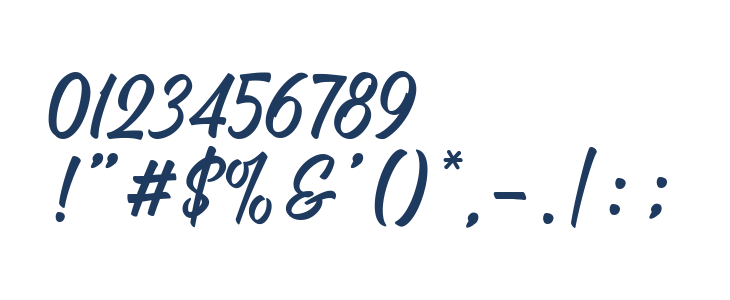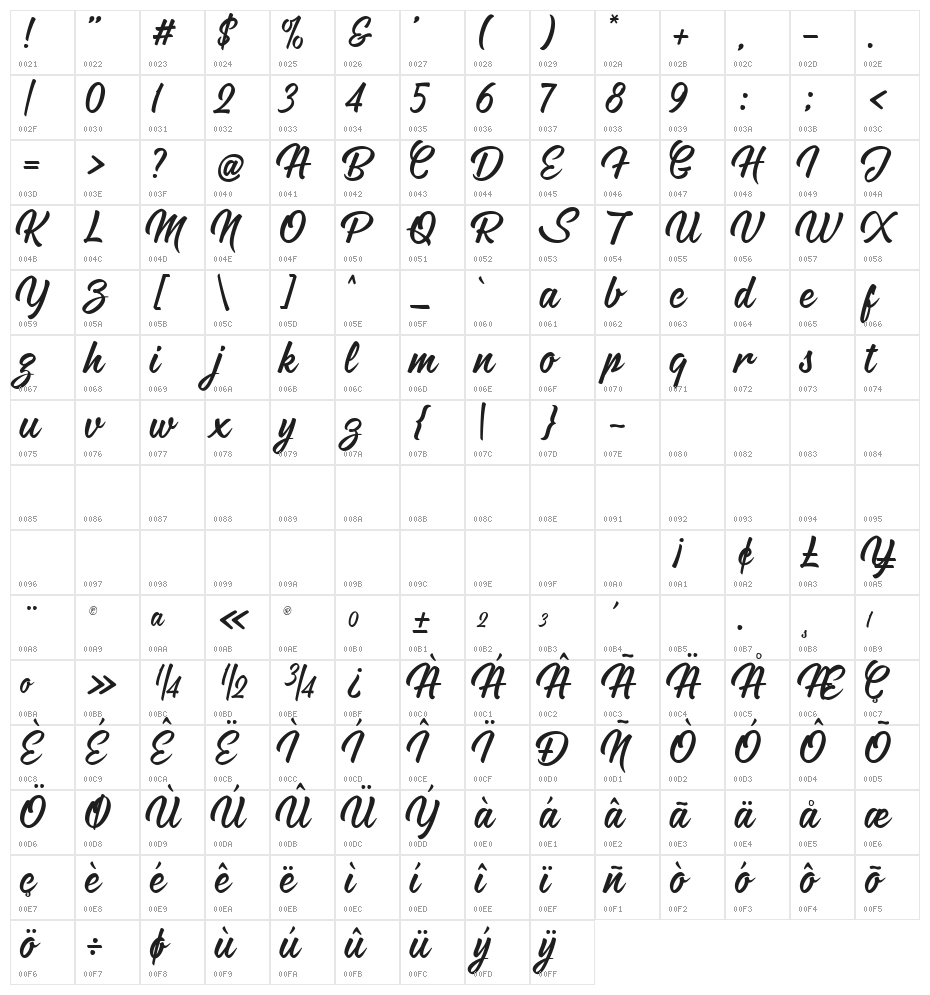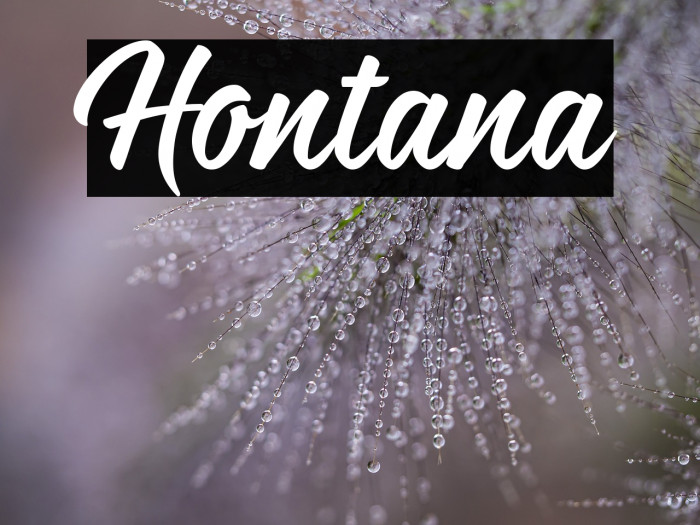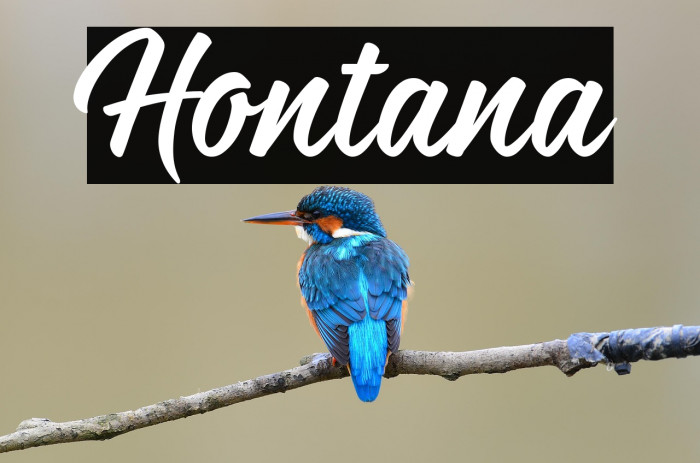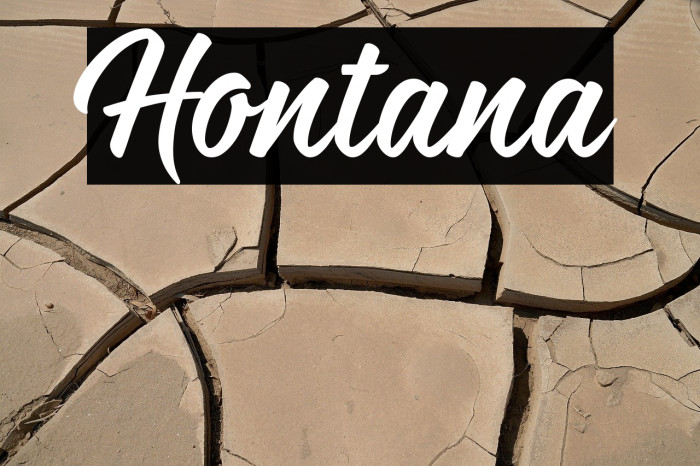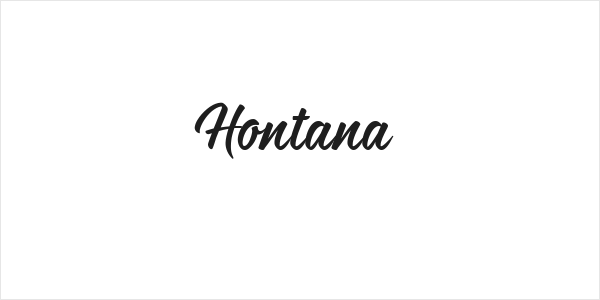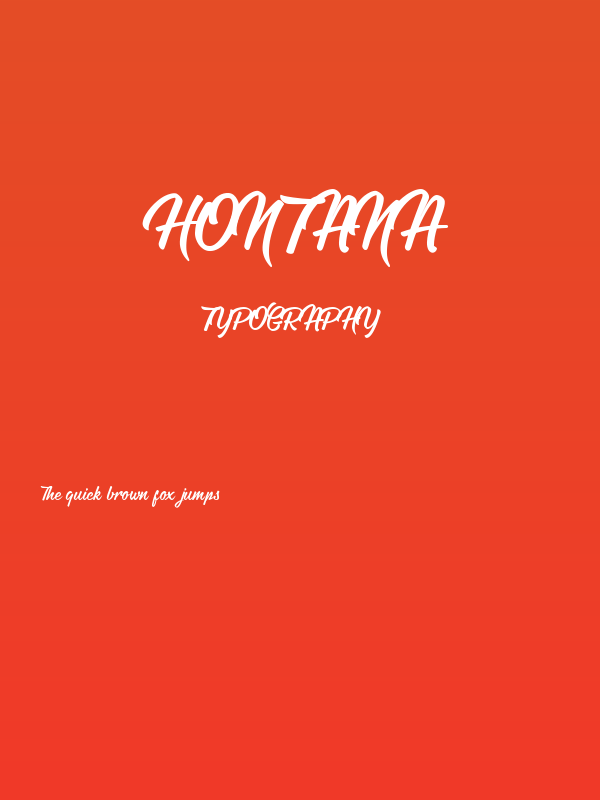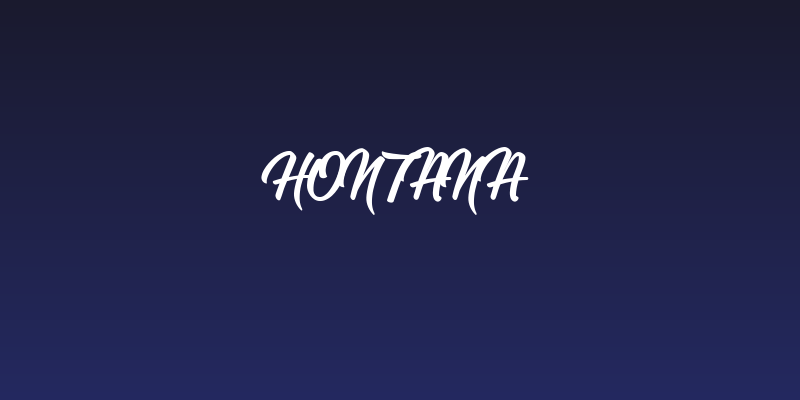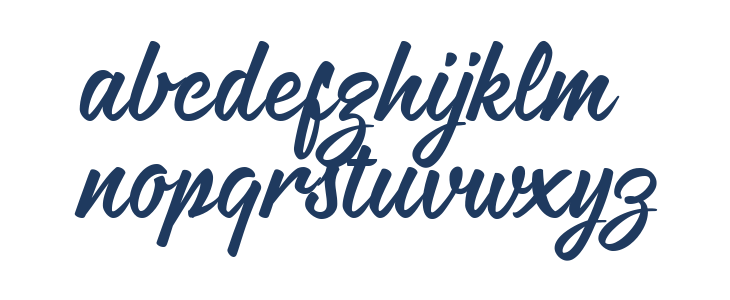
Hontana Font
Hontana Description
This font features a bold and expressive script style, characterized by its flowing, cursive letterforms. The uppercase letters are elegantly designed with sweeping curves and a sense of movement, while the lowercase letters maintain a consistent rhythm and fluidity. The numerals are bold and clear, complementing the overall style of the font. Special characters are integrated seamlessly, adding versatility to the font's use. The font's dynamic and artistic appearance makes it suitable for creative and decorative applications, offering a sense of elegance and sophistication.
| Proposed Projects | Ideal for branding, invitations, greeting cards, and artistic projects. |